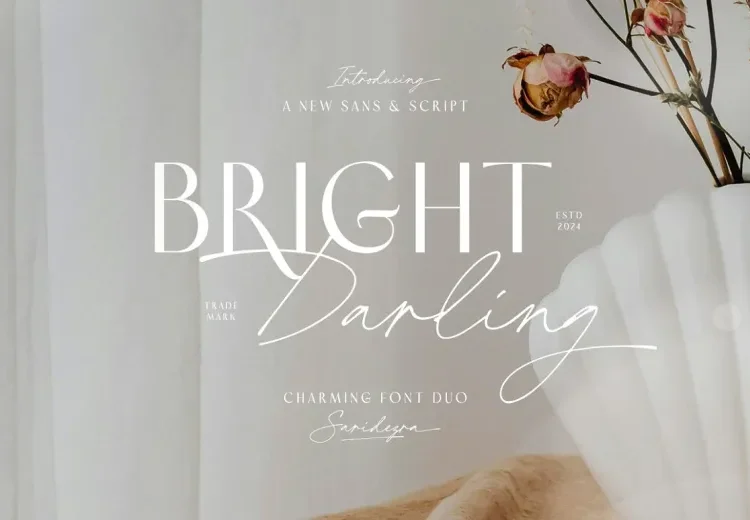
Bright Darling Font Duo
Bright Darling is an elegant font duo that combines the sleek modernity of a sans-serif with the charm of a signature script. This versatile font pair includes an all-caps sans-serif for a clean, contemporary look and a handwriting-inspired script for a touch of personal flair.
Bright Darling is perfect for:
• Branding: Enhance your brand’s identity with a blend of modern and handwritten styles.
• Wedding Invitations: Add sophistication and a personal touch to your wedding stationery.
• Logos and Quotes: Create memorable and visually appealing logos or add a unique touch to inspirational quotes.
• End Swashes and Ligatures: Utilize the elegant end swashes and ligatures for a polished and cohesive design.
Whether you’re working on branding, invitations, or any creative project, Bright Darling Font Duo offers endless possibilities to elevate your designs.